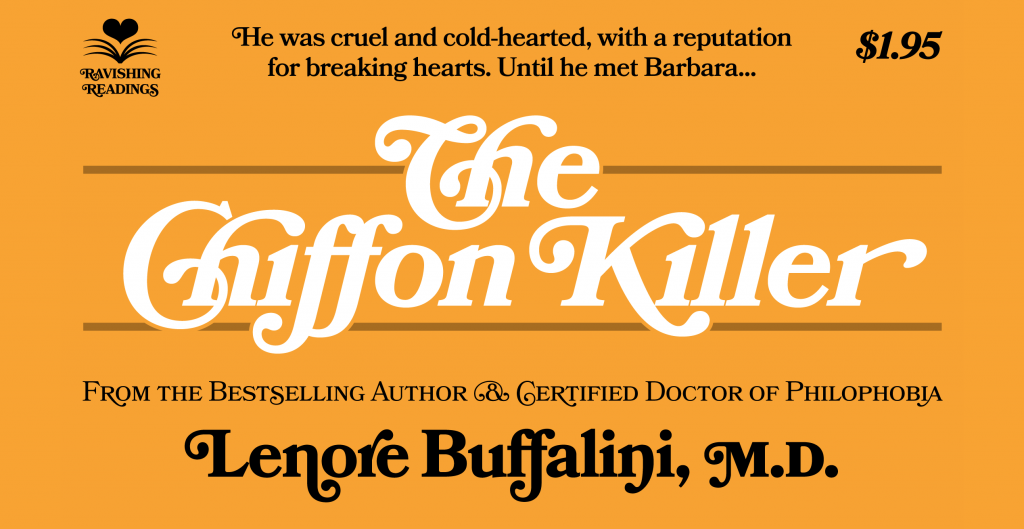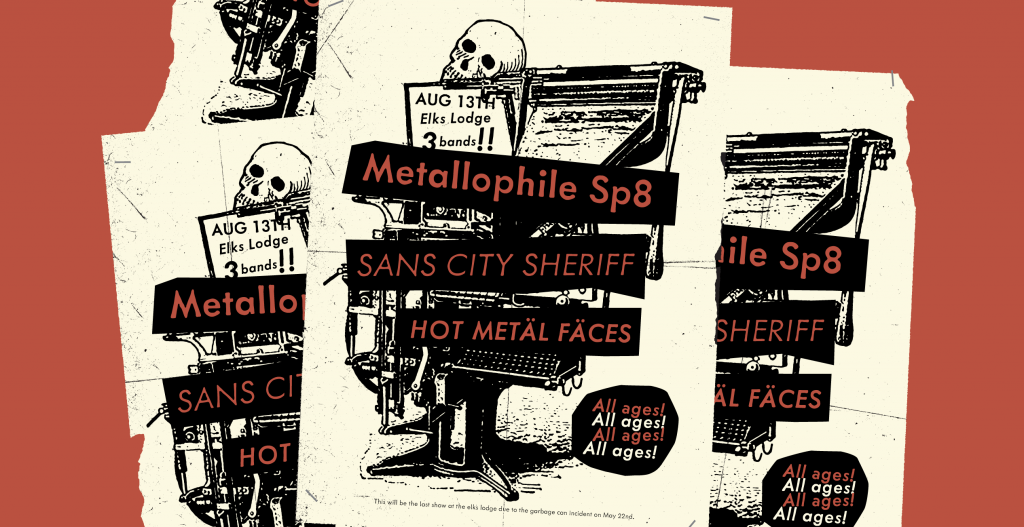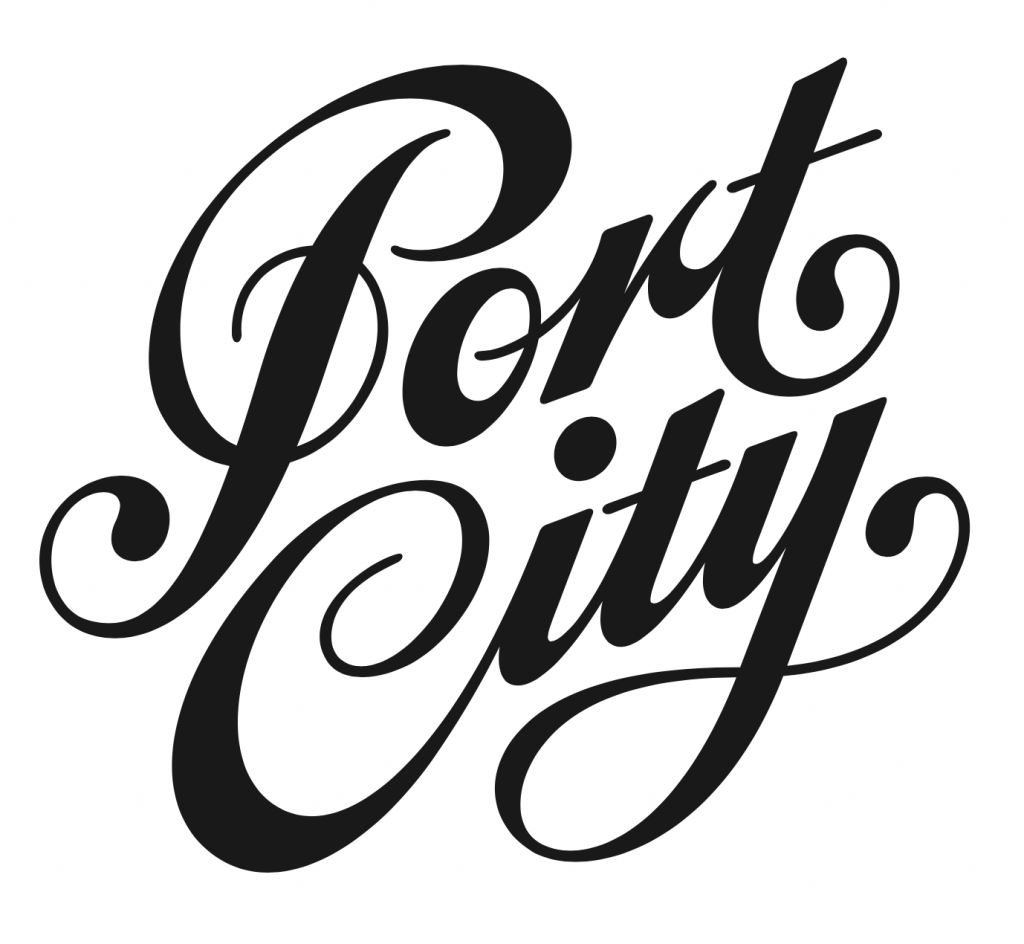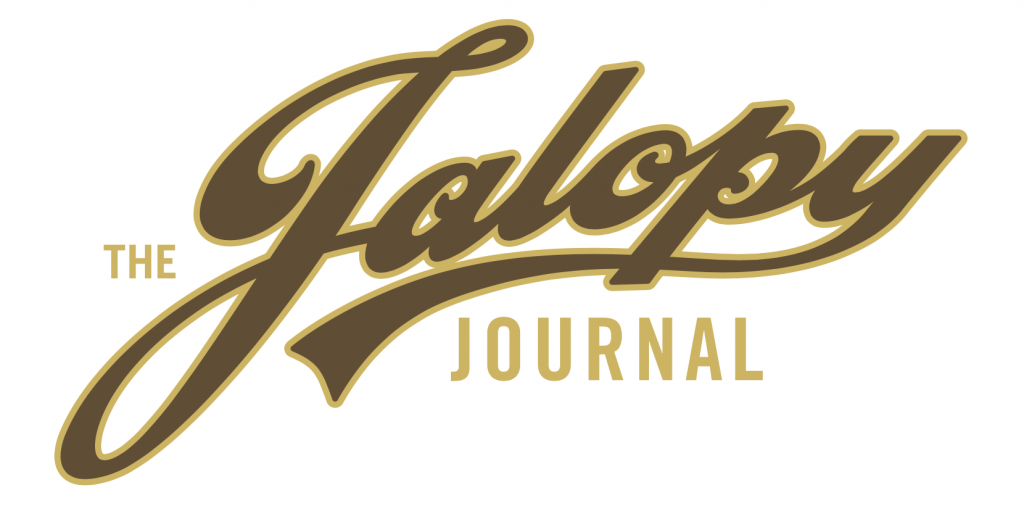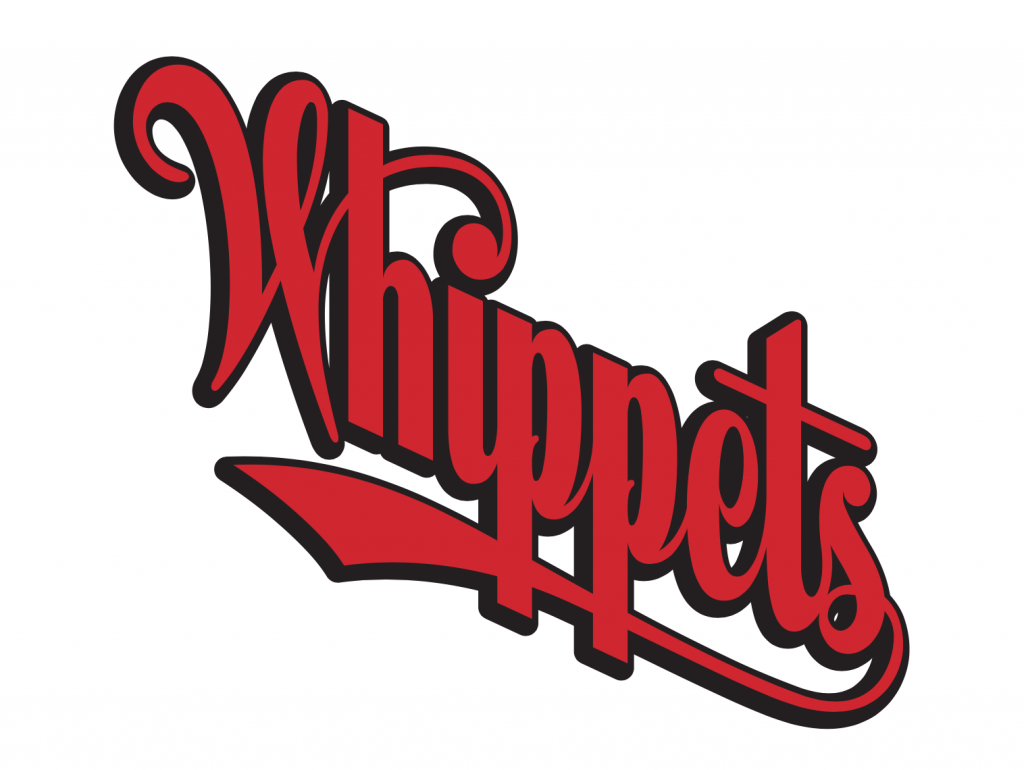
Lettering Legend - Mark Simonson Interview
Mark Simonson is a gifted artist who specialises in type design and making fonts. He has also created some hand lettering pieces throughout his career and is this months 'Lettering Legend'. Mark spent quite some time working as a magazine art director and it wasn't until a little later into his life that he started making fonts. Despite this, Mark has still managed to build an incredible reputation for his outstanding work within the world of lettering and type. He has proved that with the right skills and some hard work a person can make a significant impact within design at any point in their career.
Mark grew up with an interest in letters, and always displayed a passion for art. Similarly to many others, he was unaware that it was possible to make a career out of lettering. Luckily as he reached his college years he discovered otherwise and worked at honing his lettering skills. Now, after developing a successful career in type design Mark has seen his fonts used in so many ways and so many places. His Proxima Nova font in particular has been used on some distinguished projects.
More recently Mark has reignited a passion for hand lettering work too, and some examples of his latest work which are not currently viewable on his website upon publication of this interview can be seen below.
When Mark creates a new font he often shares parts of his process, which is not only inspiring but can provide helpful insight if you are a budding type designer. Mark's honesty around his work and the way he inspires makes him truly deserving of the title 'Lettering Legend'.
Learn about transitioning from hand lettering to font design, the importance of licensing your work, the process of making a font look hand drawn and more in the interview with Mark below.
If you were to create and name a font after yourself assuming you haven’t already in the past, what style would you give it and how do you think it would look?
"I don’t really like the idea of naming a font after myself. I know people do sometimes, and that’s fine. I think it works best when someone has a well-known name as a designer or artist already. It can maybe help to promote the font. If I think about it, if I did name a font after myself, maybe it would be a style that has some special significance to me or with my past. But, as soon as I wrote that I realized, that’s what I always do anyway. So, I don’t know. I probably wouldn’t do it. Plus, picking a name is very tricky. You don’t want to limit yourself to some preconceived idea. Maybe the name doesn’t look good set in the font."
Do you think it’s easy for hand lettering artists to transition into font design, or are there different fundamentals to consider?
"It’s tricky. The two disciplines are obviously related. You’re drawing letters. But a piece of lettering and font are very different things. Lettering is more free-form. You’re not constrained by the horizontal row of characters with fixed relationships to each other. With lettering, you’re drawing the words yourself, and you can do whatever works for those particular words. When you make a font, you’re making a tool that draws words automatically. It has to be created in a systematic way so that it looks right no matter what combination of letters is needed. For a lettering artist, this can feel very constraining. It’s a different mindset."
Many of your fonts have been used all over the web, in magazines, on book covers, signs and a number of other places. When creating a font do you have a specific idea in mind of how you would like that font to be used once complete, and does that guide your design?
"It’s too easy to fall into the trap of creating a font that is interesting or beautiful but that nobody wants or needs. At the same time it’s very difficult to know what people might want. So what I do is try to make fonts that I would want to use myself if they existed. It helps that I worked for many years as an art director and graphic designer, so I have experience as a font user. There seem to be enough other people out there who share my taste in type, so it seems to work for me most of the time. Better than trying to second guess what people want. That’s never worked for me."
Licensing and the importance of it is something that can be overlooked by designers and artists. Have you had any negative experiences in this area and what tips can you share for those creating their first font or lettering licenses?
"When you dream of becoming a type designer, you only think about the design part, as if that’s all there was to it. But, as someone who makes a living designing typefaces, in particular for the retail font market, the design part accounts for zero income for me. In fact, I’m in the licensing business. I couldn’t do that if I didn’t have something to license, but that is how I make my living, from selling licenses, not from designing typefaces, at least not directly.